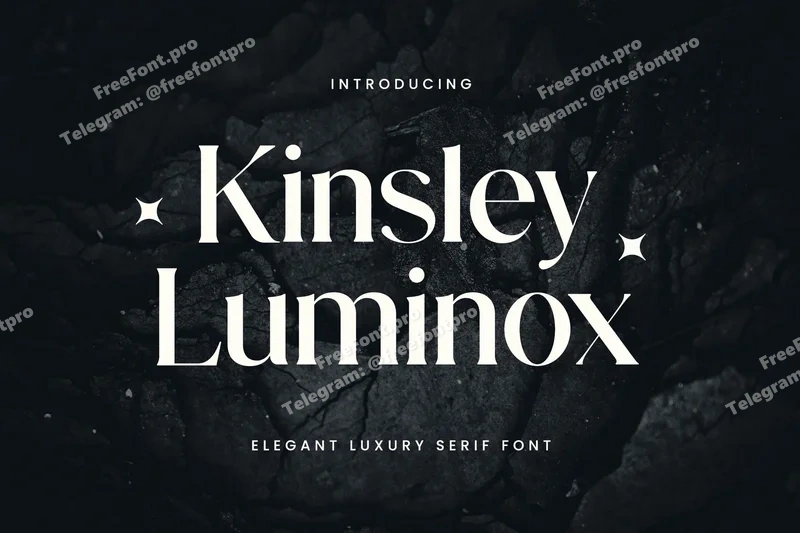
Kinsley Luminox Elegant Serif Font
Introducing our new product the name is Kinsley Luminox Elegant Serif Font. Kinsley Luminox Elegant Serif Font that feels beautiful classy, elegant, and modern. This font is perfectly suited for a wide variety of projects, such as signature, stationery, logo, wedding, typography quotes, magazine or book covers, website headers, branding, packaging design, and more. Also, fashion-related branding or editorial design displays both masculine and feminine qualities.